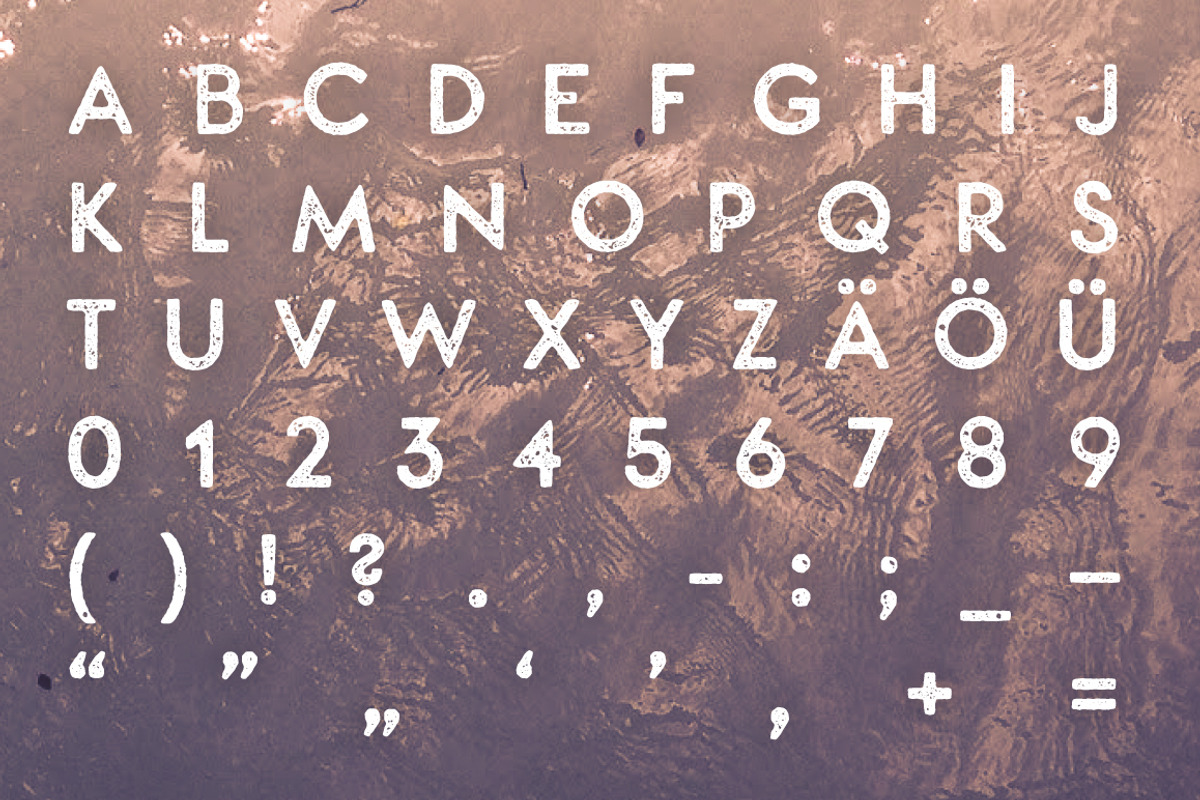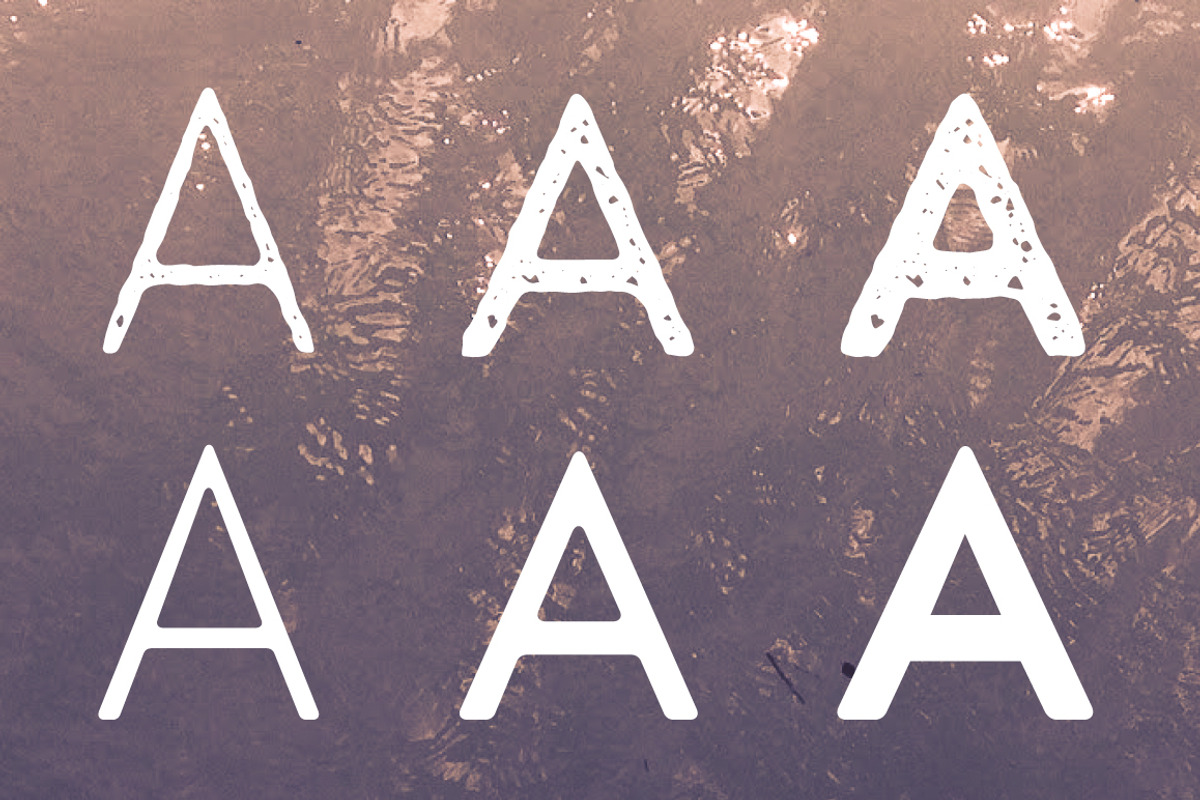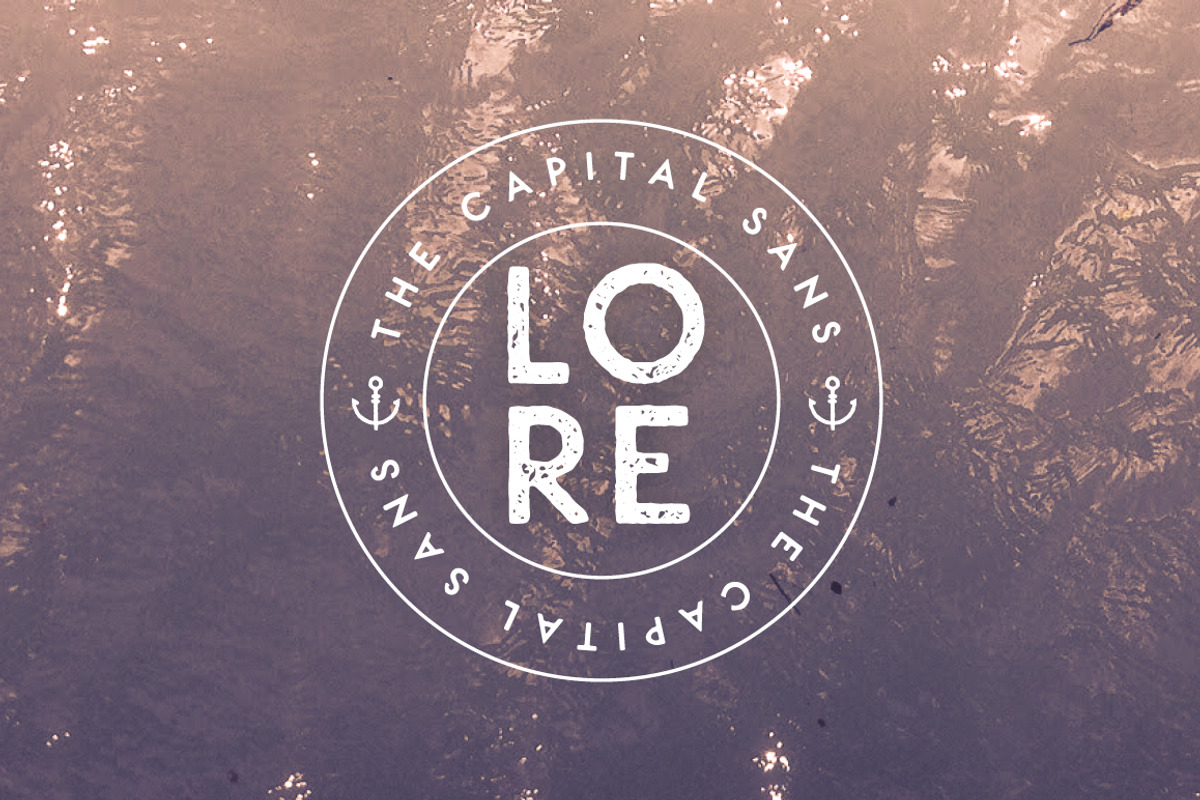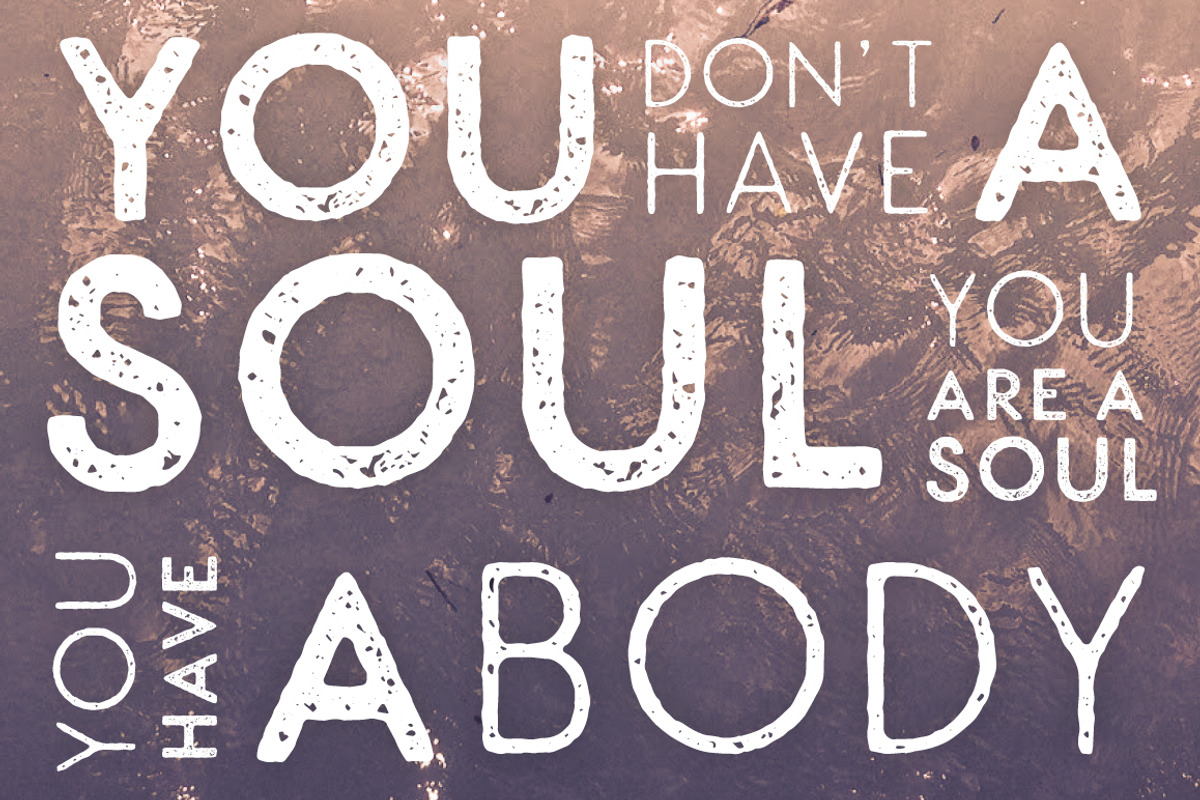
LORE TEXTURE -Geometric Capital Font
LORE TEXTURE -Geometric Capital Font by Studio ZACK is a font selected for branding, posters, packaging, typography.
- LORE Light-Round
- LORE Light-Texture
- LORE Regular-Round
- LORE Regular-Texture
- LORE Bold-Round
- LORE Bold-Texture
LORE TEXTURE -Geometric Capital Font by Studio ZACK fits naturally into Branding, posters, packaging, typography.